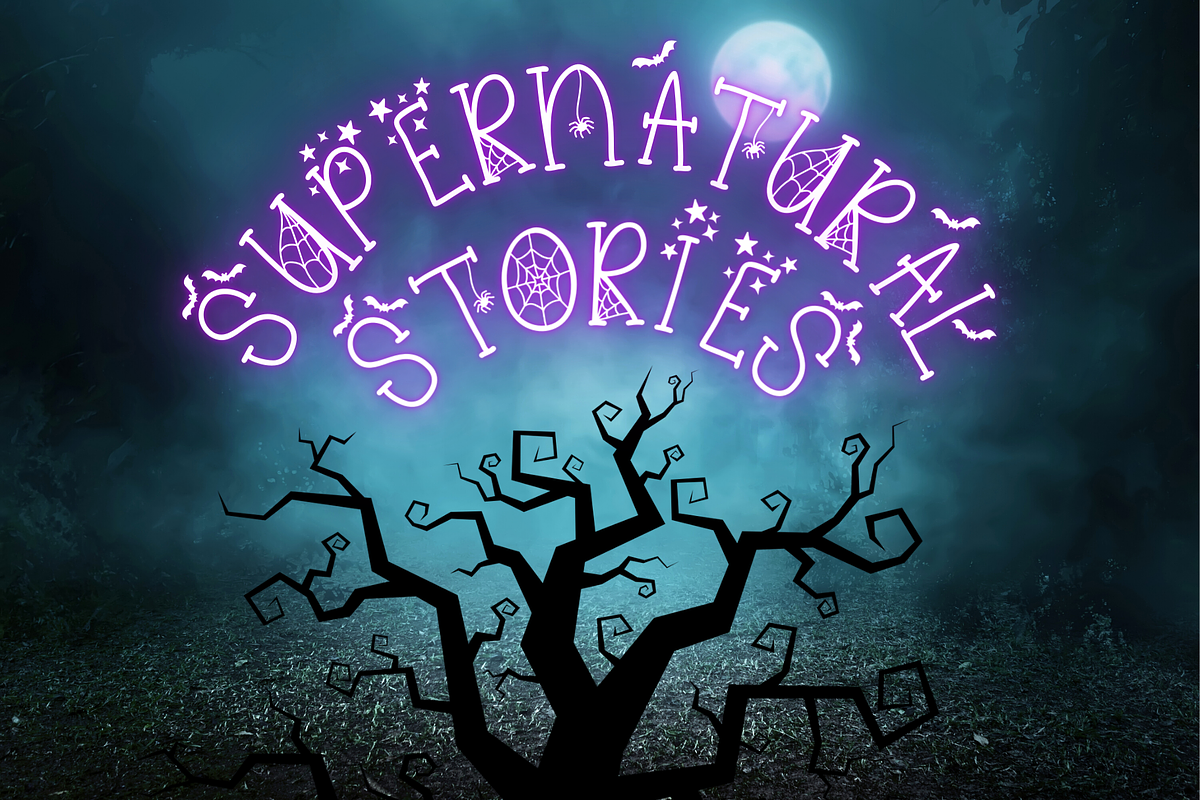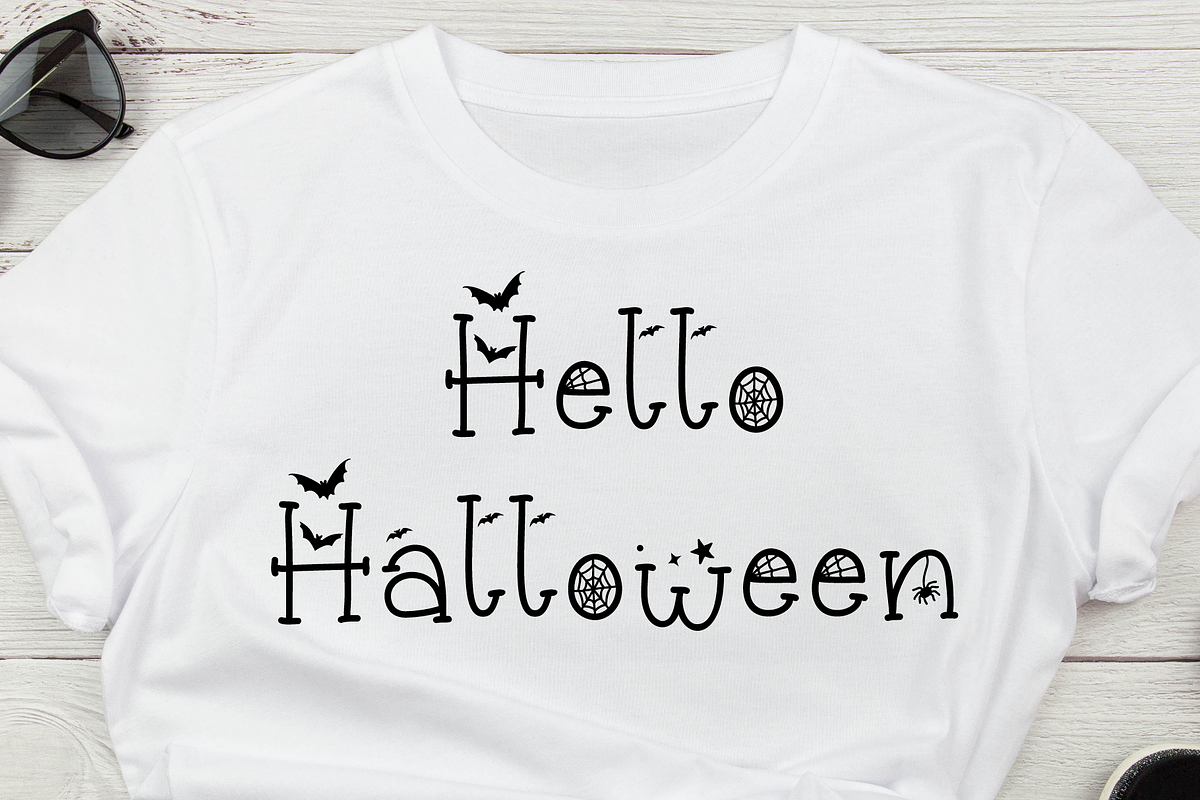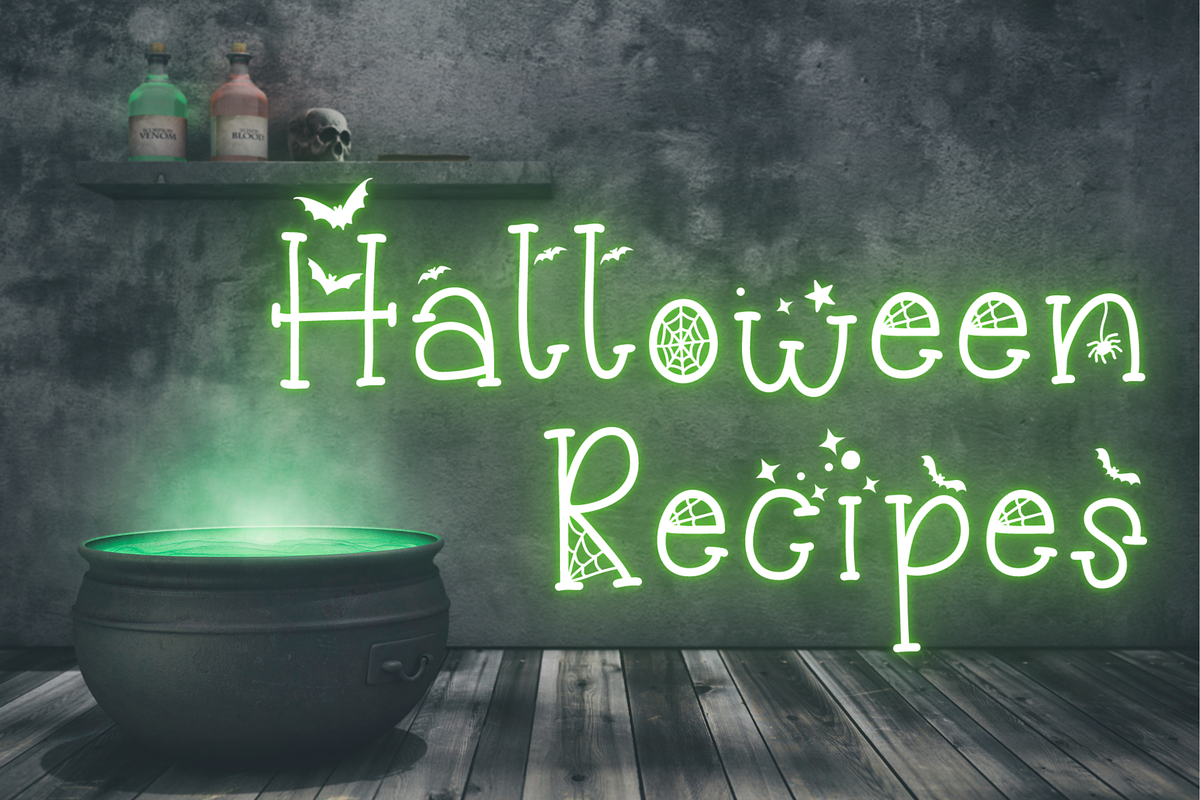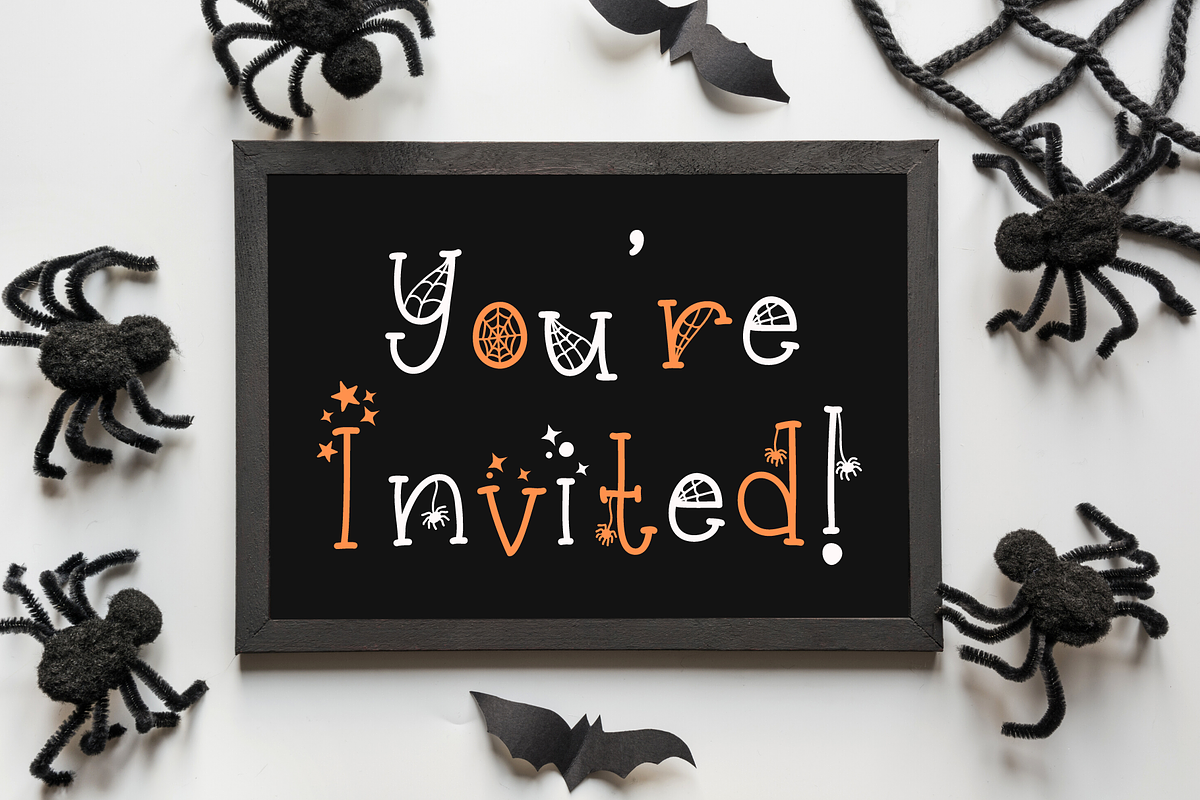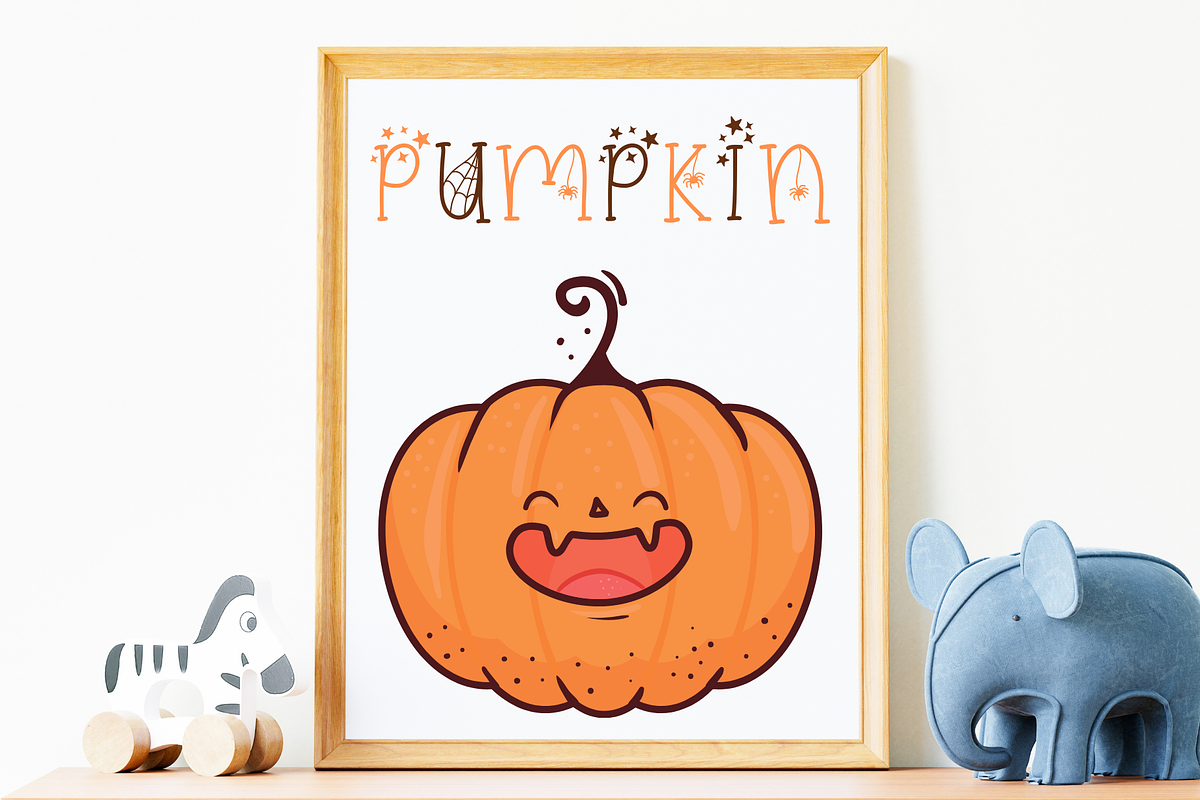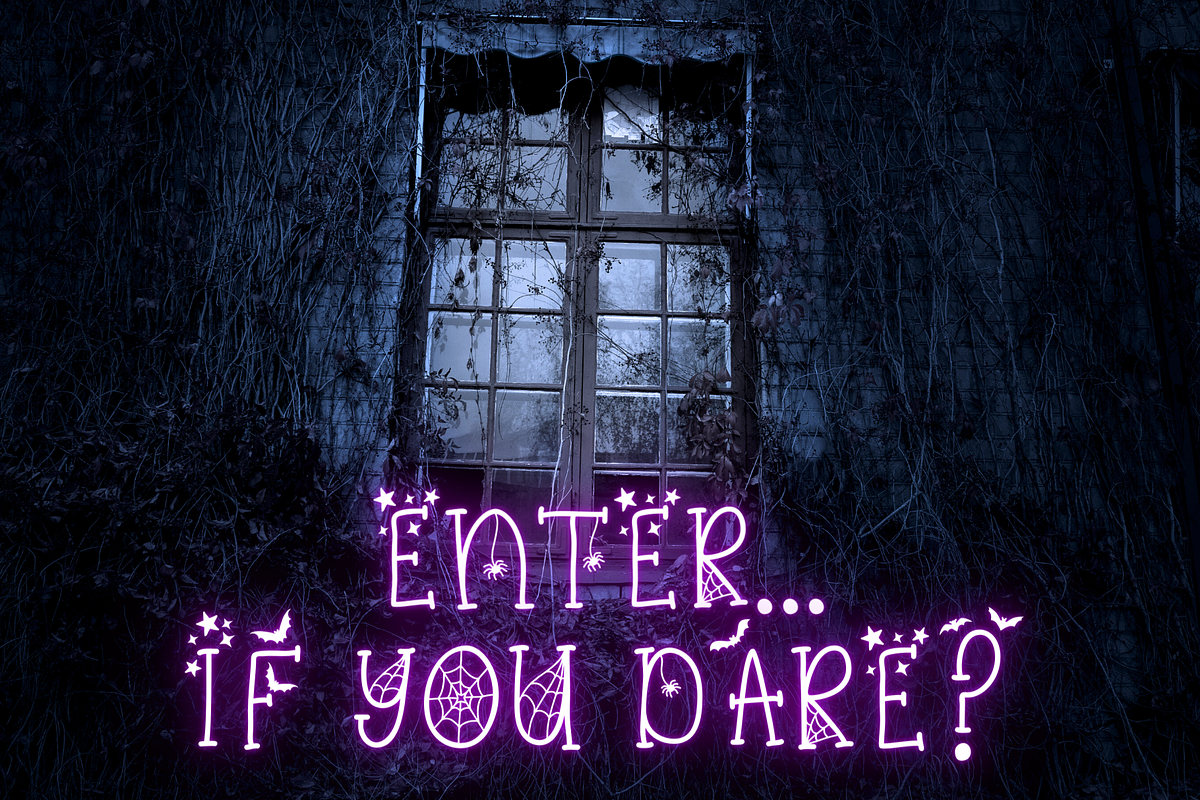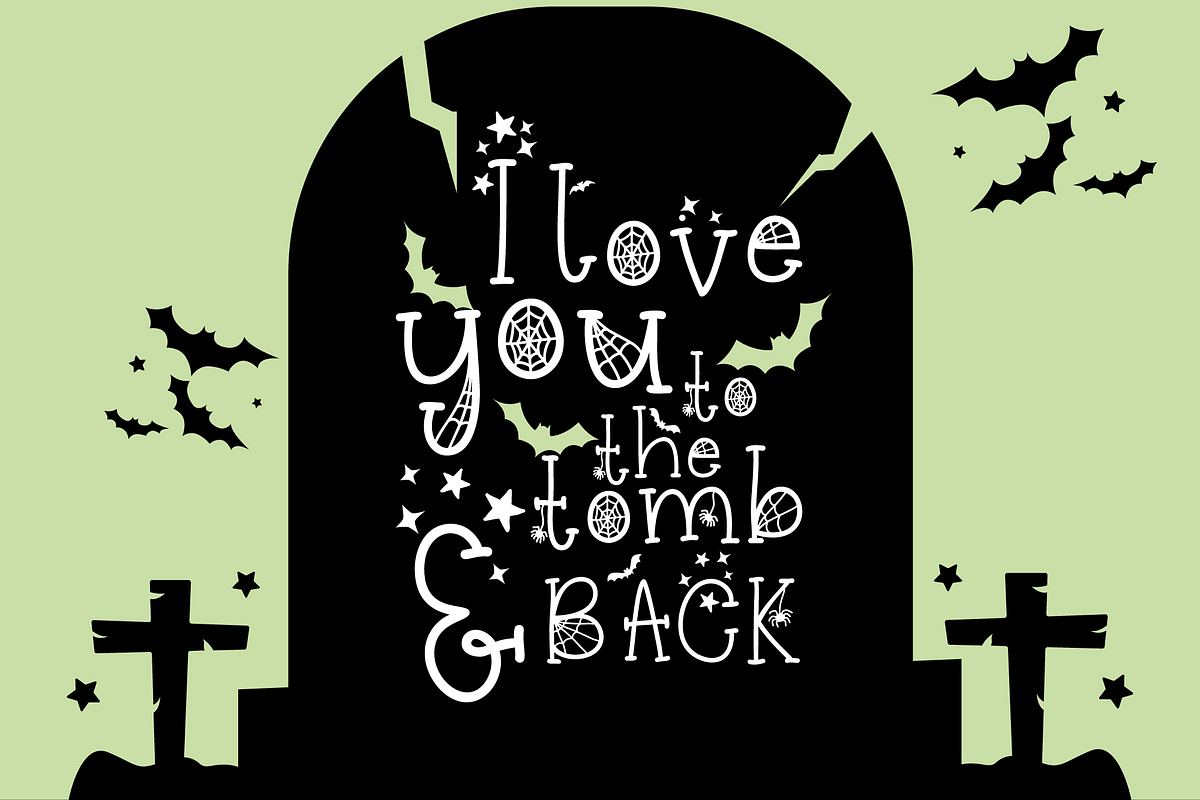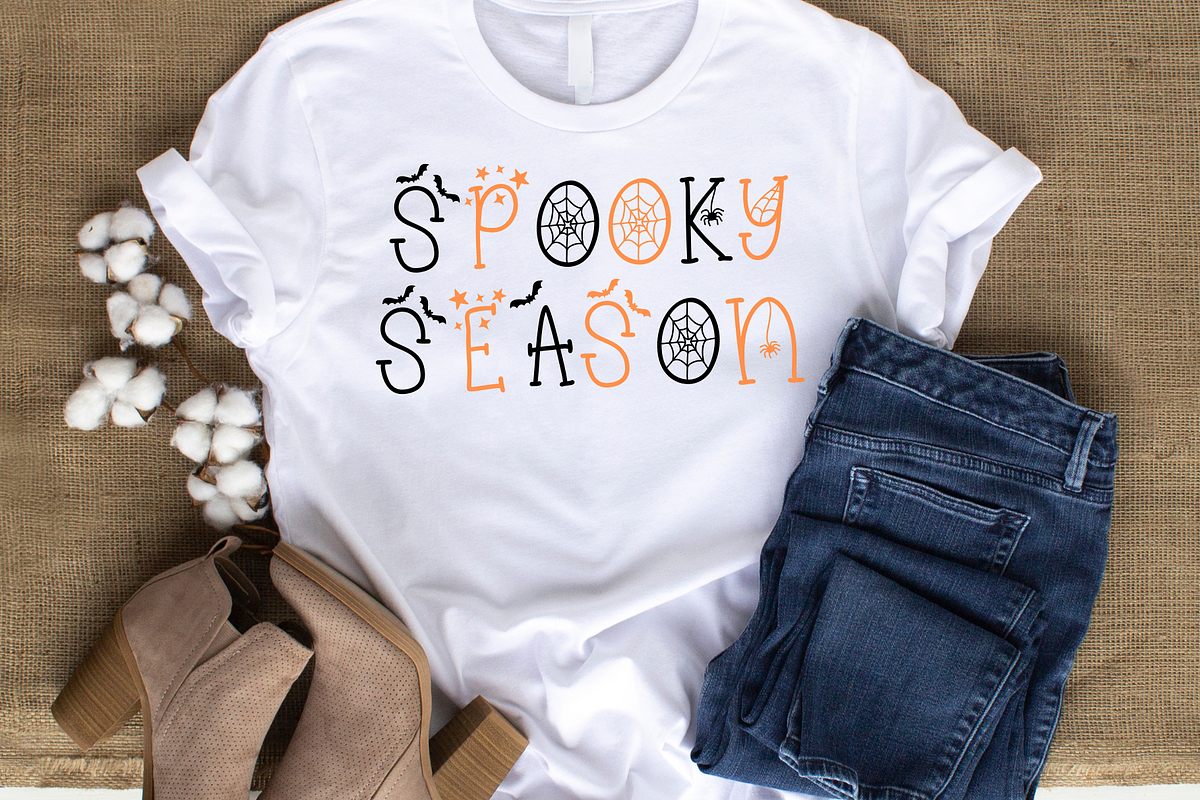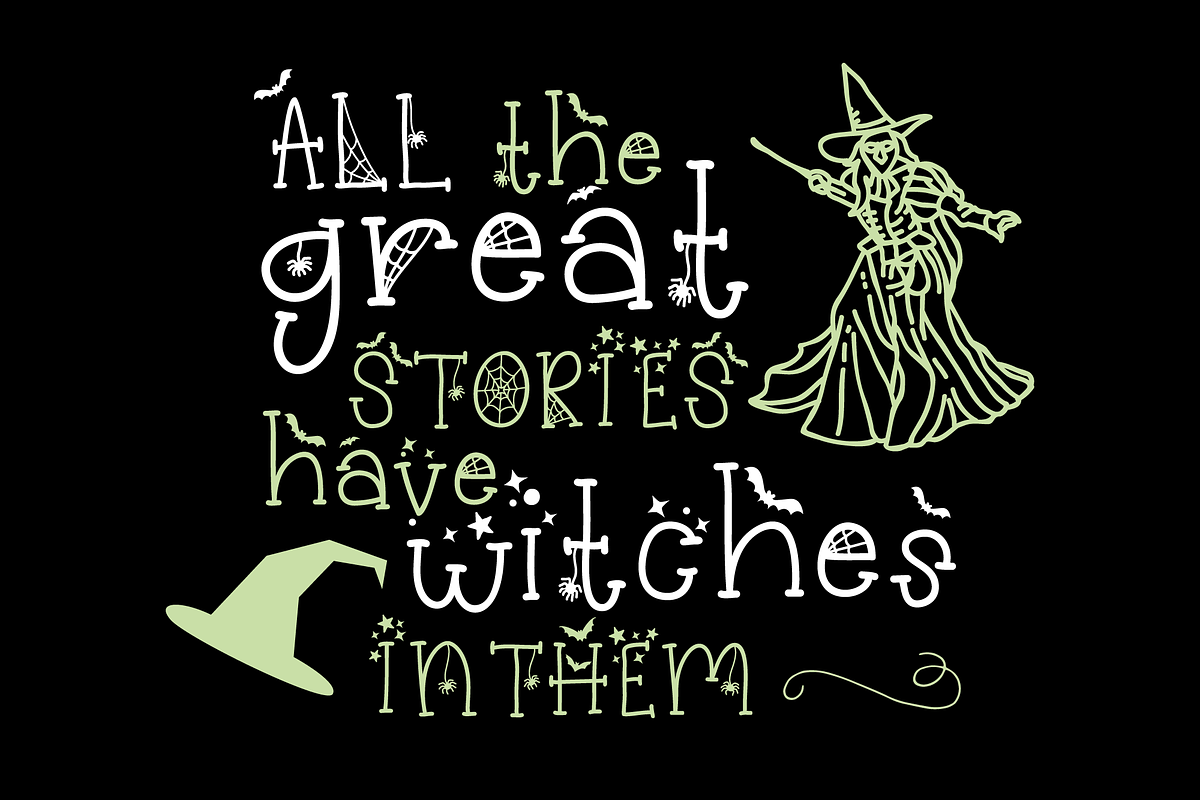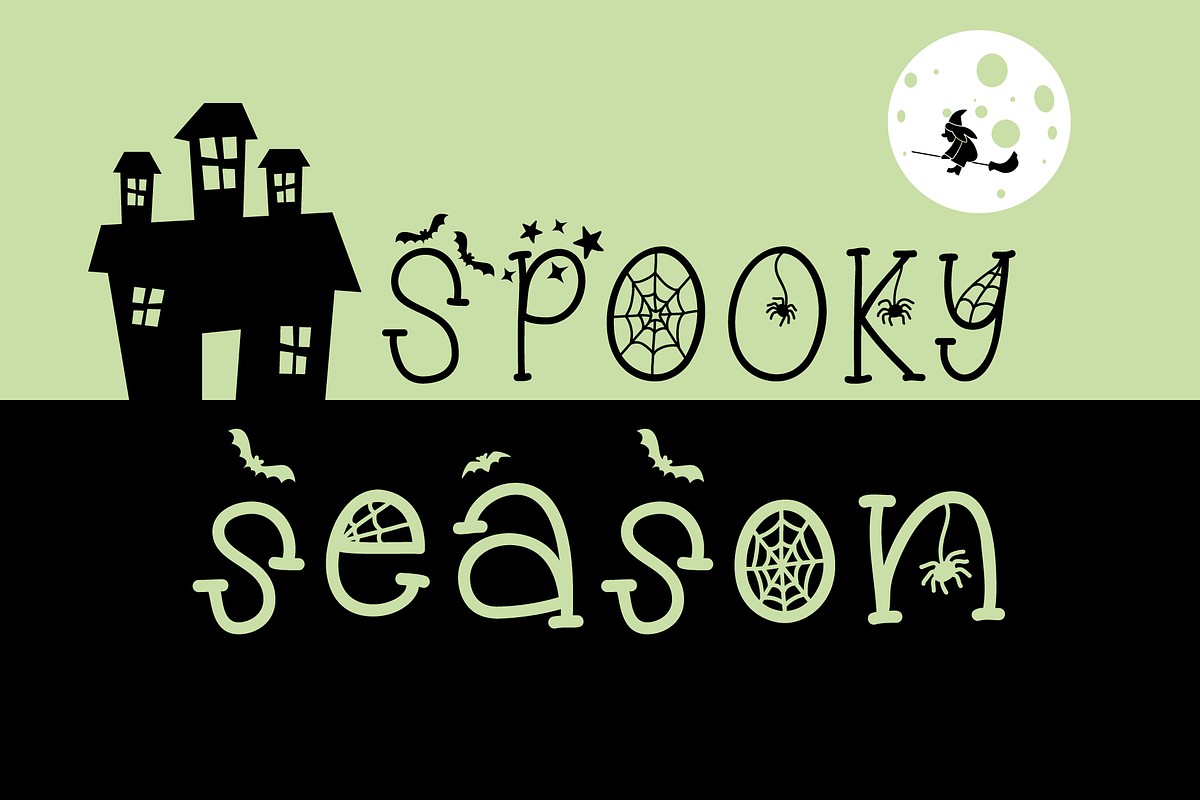
Spookerly Halloween Font
A spooky halloween opentype font.
Spookerly is a halloween font with a fun bats, spiders, cobwebs, & stars design. Perfect for a wide range of Halloween applications such as party invitations, flyers, banners, & fun halloween displays.